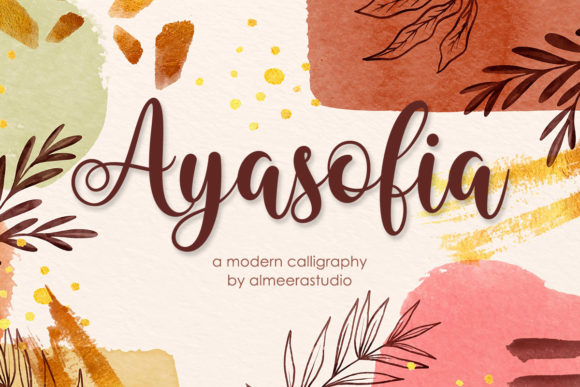
Ayasofia Font: Elevate Your Designs with Elegance and Sophistication
Ayasofia Font is a stunning script font that has been gaining popularity among designers and crafty individuals alike. Its beautiful, flowing strokes and elegant appearance make it an ideal choice for a wide range of design projects that require a personalized touch. In this article, we’ll dive into the world of Ayasofia Font, exploring its features, uses, and benefits, as well as provide tips on how to make the most of this gorgeous font.
What is Ayasofia Font?
Ayasofia Font is a script font designed to add a touch of elegance and sophistication to any design project. Its flowing strokes, intricate details, and beautiful letterforms make it perfect for creating stunning visual content. The font is highly versatile, making it suitable for a variety of applications, from wedding invitations and greeting cards to logos and branding materials.
Features of Ayasofia Font
Ayasofia Font boasts several impressive features that set it apart from other script fonts. Some of its notable features include:
- Beautiful and flowing script: Ayasofia Font features a stunning script design that flows effortlessly across the page, creating a beautiful and cohesive look.
- Elegant and sophisticated: The font’s elegant and sophisticated design makes it perfect for high-end designs, such as luxury branding, wedding invitations, and upscale greeting cards.
- Highly legible: Despite its ornate design, Ayasofia Font remains highly legible, making it suitable for body text and other applications where readability is crucial.
- Support for multiple languages: Ayasofia Font supports multiple languages, making it a great choice for designers working on international projects.
Uses of Ayasofia Font
Ayasofia Font is an incredibly versatile font that can be used in a wide range of design applications. Some of its most popular uses include:
- Wedding invitations: Ayasofia Font is a popular choice for wedding invitations, adding a touch of elegance and sophistication to this special occasion.
- Greeting cards: The font’s beautiful design makes it perfect for greeting cards, including thank you cards, birthday cards, and holiday cards.
- Logos and branding: Ayasofia Font can be used to create stunning logos and branding materials, adding a touch of elegance and sophistication to any business or organization.
- Stationery and paper goods: The font is also suitable for stationery and paper goods, such as letterheads, envelopes, and notebooks.
Benefits of Using Ayasofia Font
There are several benefits to using Ayasofia Font in your design projects. Some of the most significant advantages include:
- Elegance and sophistication: Ayasofia Font adds a touch of elegance and sophistication to any design project, making it perfect for high-end designs.
- Versatility: The font’s versatility makes it suitable for a wide range of design applications, from wedding invitations to logos and branding materials.
- Easy to read: Despite its ornate design, Ayasofia Font remains highly legible, making it suitable for body text and other applications where readability is crucial.
- Unique and distinctive: Ayasofia Font is a unique and distinctive font that can help your designs stand out from the crowd.
Tips for Using Ayasofia Font
To make the most of Ayasofia Font, here are a few tips to keep in mind:
- Use it sparingly: Ayasofia Font is a beautiful font, but it can be overwhelming if used excessively. Use it sparingly to add a touch of elegance and sophistication to your designs.
- Pair it with a simple font: Pair Ayasofia Font with a simple font to create a beautiful contrast that adds visual interest to your designs.
- Experiment with different colors: Ayasofia Font looks stunning in a variety of colors, so don’t be afraid to experiment and find the perfect hue for your design.
- Pay attention to spacing: Make sure to pay attention to spacing when using Ayasofia Font, as it can affect the overall flow and readability of your design.
Ayasofia Font is a stunning script font that can elevate your designs with elegance and sophistication. Its beautiful, flowing strokes and elegant appearance make it perfect for a wide range of design applications, from wedding invitations to logos and branding materials. With its versatility, legibility, and unique design, Ayasofia Font is a great choice for designers looking to add a touch of elegance and sophistication to their work.
- What is Ayasofia Font? Ayasofia Font is a script font designed to add a touch of elegance and sophistication to any design project.
- What is Ayasofia Font used for? Ayasofia Font is suitable for a wide range of design applications, including wedding invitations, greeting cards, logos, and branding materials.
- Is Ayasofia Font easy to read? Yes, Ayasofia Font is highly legible, making it suitable for body text and other applications where readability is crucial.